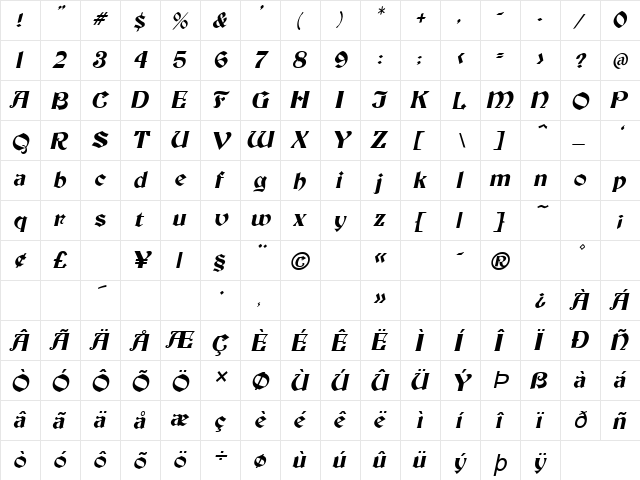
Brandywine Italic
Design Context for Brandywine Typeface
Brandywine is a composed and adaptable typeface that performs quietly and consistently across a wide range of design contexts. Its italic angle brings a sense of urgency and motion to the letterforms.
Pro Tip: Try Brandywine for annotation and caption copy alongside an upright companion — the contrast in angle creates a dynamic but ordered typographic system.